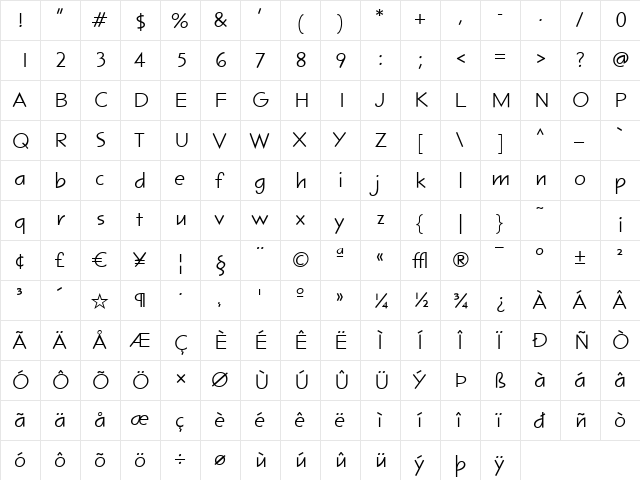
Sharktooth Regular
Design Context for Sharktooth Typeface
Sharktooth is a composed and adaptable typeface that performs quietly and consistently across a wide range of design contexts.